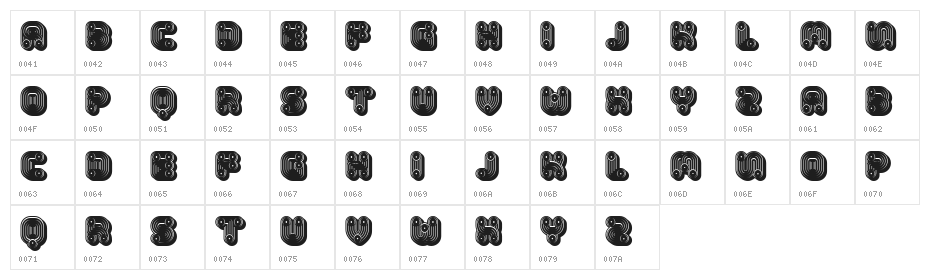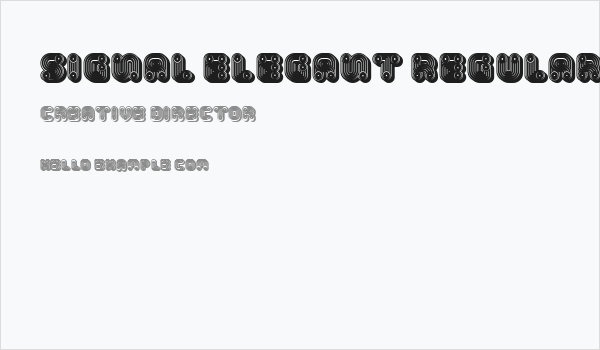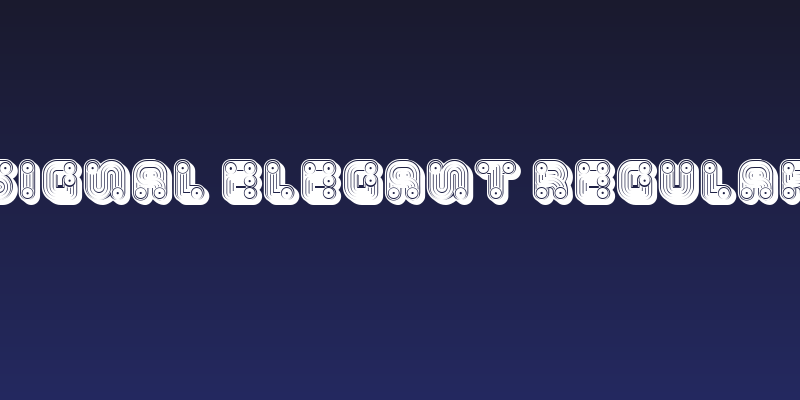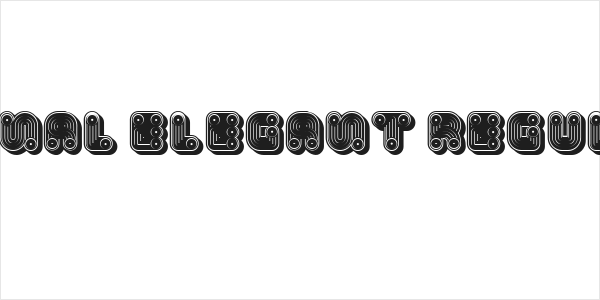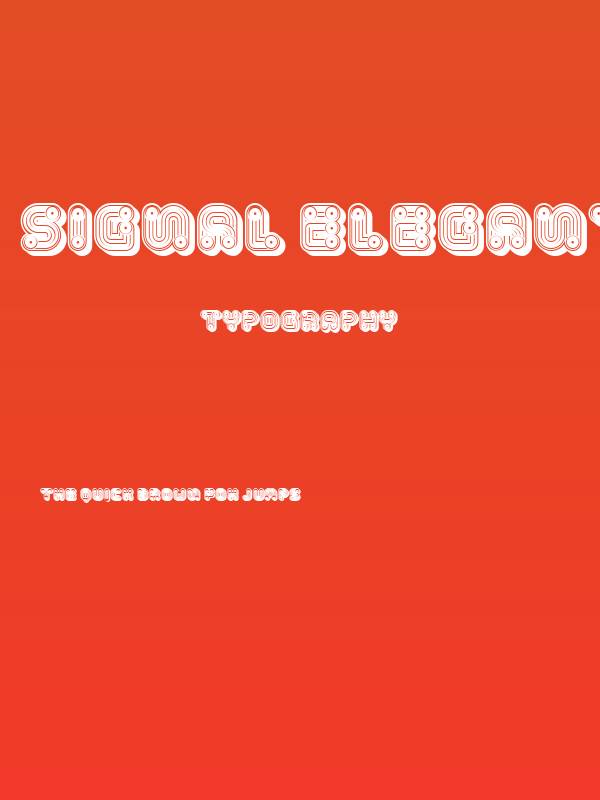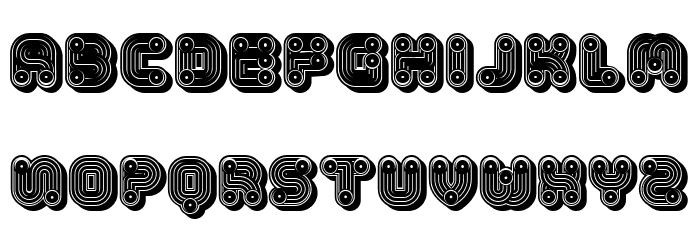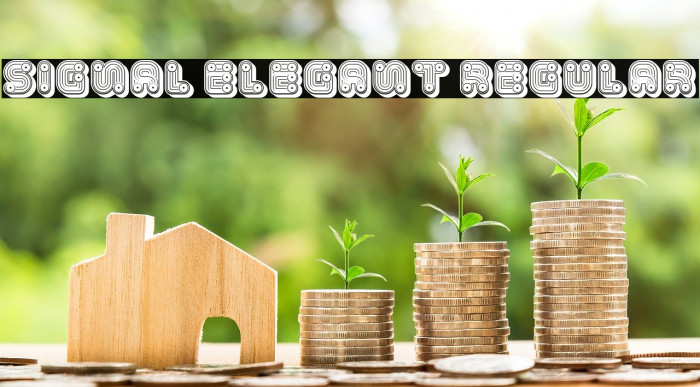
Signal Elegant Regular Font
Signal Elegant Regular Description
This font features a bold and decorative style with intricate line work and circular motifs within each character. The letters are uppercase and have a unique, layered appearance that creates a sense of depth and complexity. The design is highly stylized, with each character containing multiple concentric lines and small circular cutouts that add to its ornate look. This font is visually striking and commands attention, making it ideal for projects that require a strong visual impact. The overall aesthetic is modern yet playful, with a hint of retro influence due to its geometric patterns.
| Proposed Projects | Ideal for branding, poster design, album covers, and any project needing a bold, decorative touch. |